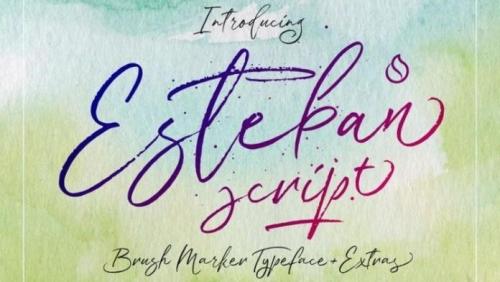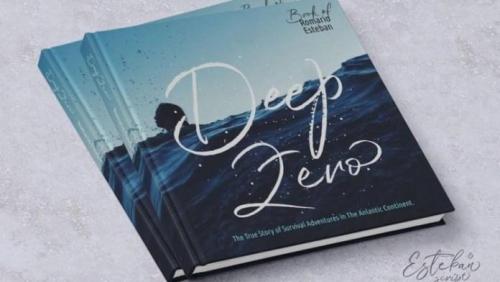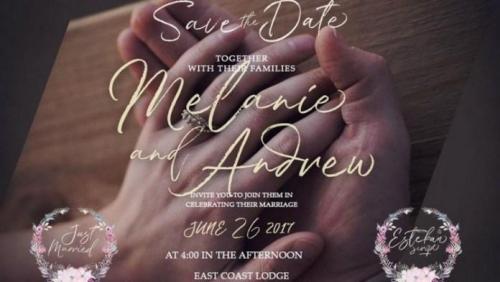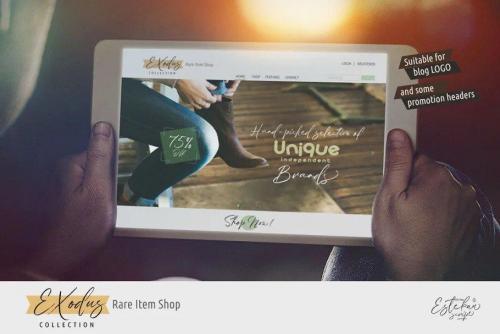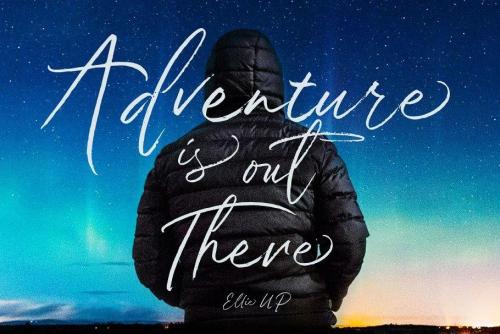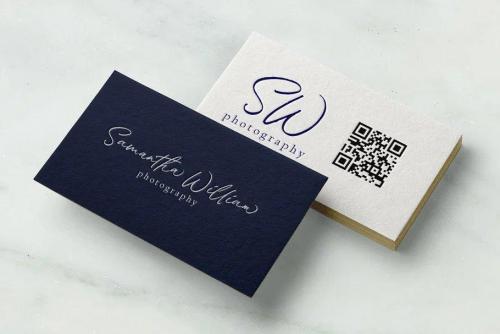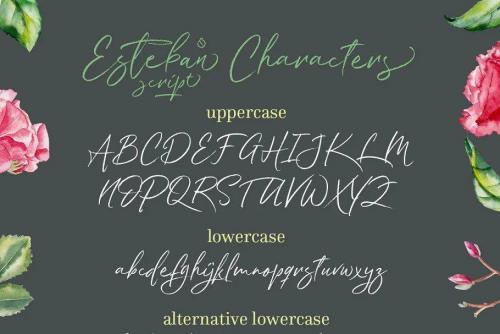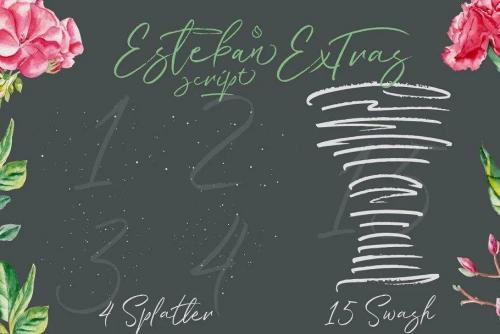
Hi….introducing Esteban Script. Brush calligraphy typeface using dry marker with rapid and spontaneous strokes, resulting in a perfect blend of feminine and masculine.
Esteban Script consist with 318 glyphs total with a ton of alternate characters and ligatures. Which is can be accessed using OpenType features.
Esteban Script is perfect for catalogue product, advertising project, branding, home ware designs, blog logo, header promotions, product packaging, wedding, quote, poster design, etc.